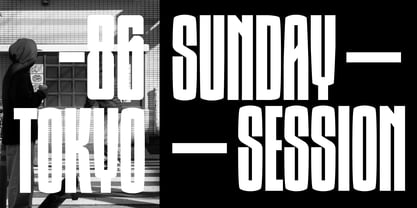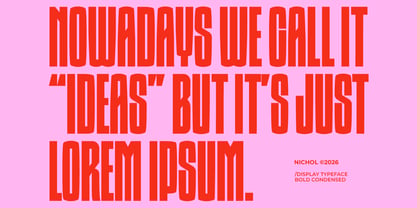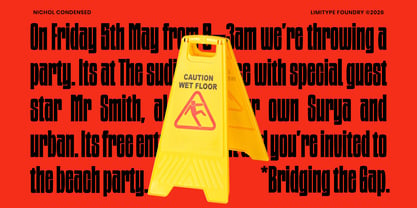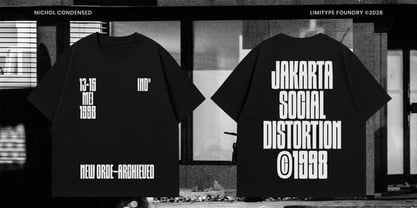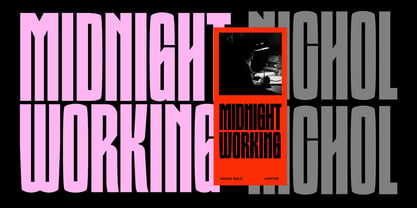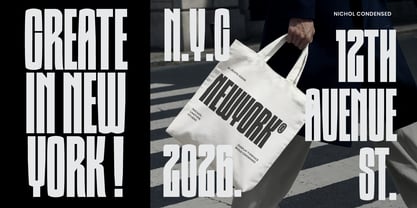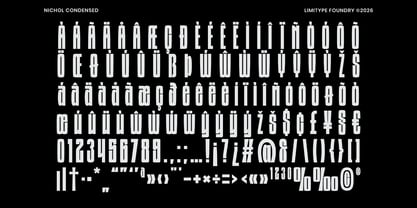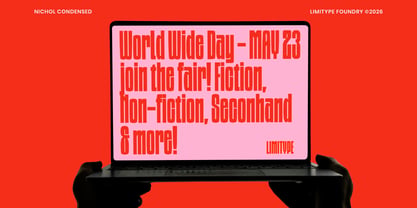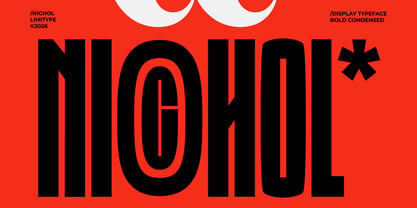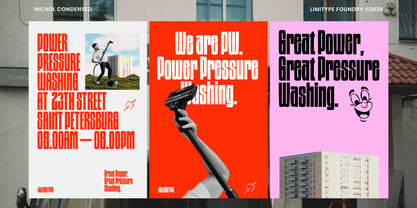
Nichol
by limitype
The Nichol Font Family was designed by Muhammad Muammar, Furqan Sudirman and published by limitype. Nichol contains 1 styles. More about this family
Nichol is a modern condensed font with sharp corners and distinctive curves in each letterform, creating a bold yet stylish visual character. Its sleek structure and unique shapes make this font highly suitable for branding, logos, posters, headlines, editorial layouts, visual identities, and modern display designs that require a strong and memorable appearance.
Designers: Muhammad Muammar, Furqan Sudirman
Foundry: limitype